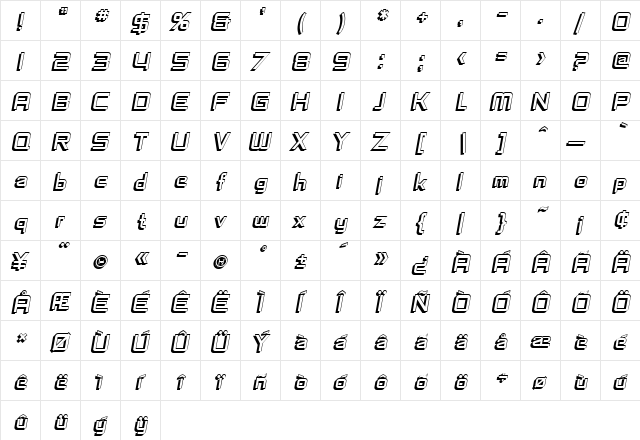
SF Fedora Titles Shadow Italic
Design Context for SF Fedora Titles Shadow Typeface
SF Fedora Titles Shadow is built around its visual character rather than neutral utility — its distinctive forms are designed to make an impression at display sizes. The dynamic lean of this cut emphasises speed and emphasis in any layout.
Font Pairing: Pair with a clean neutral sans-serif for body copy to let SF Fedora Titles Shadow's character lead without overwhelming the composition.
Pro Tip: Treat SF Fedora Titles Shadow as the centrepiece of your typographic hierarchy. One strong heading set in a decorative face can carry an entire layout.